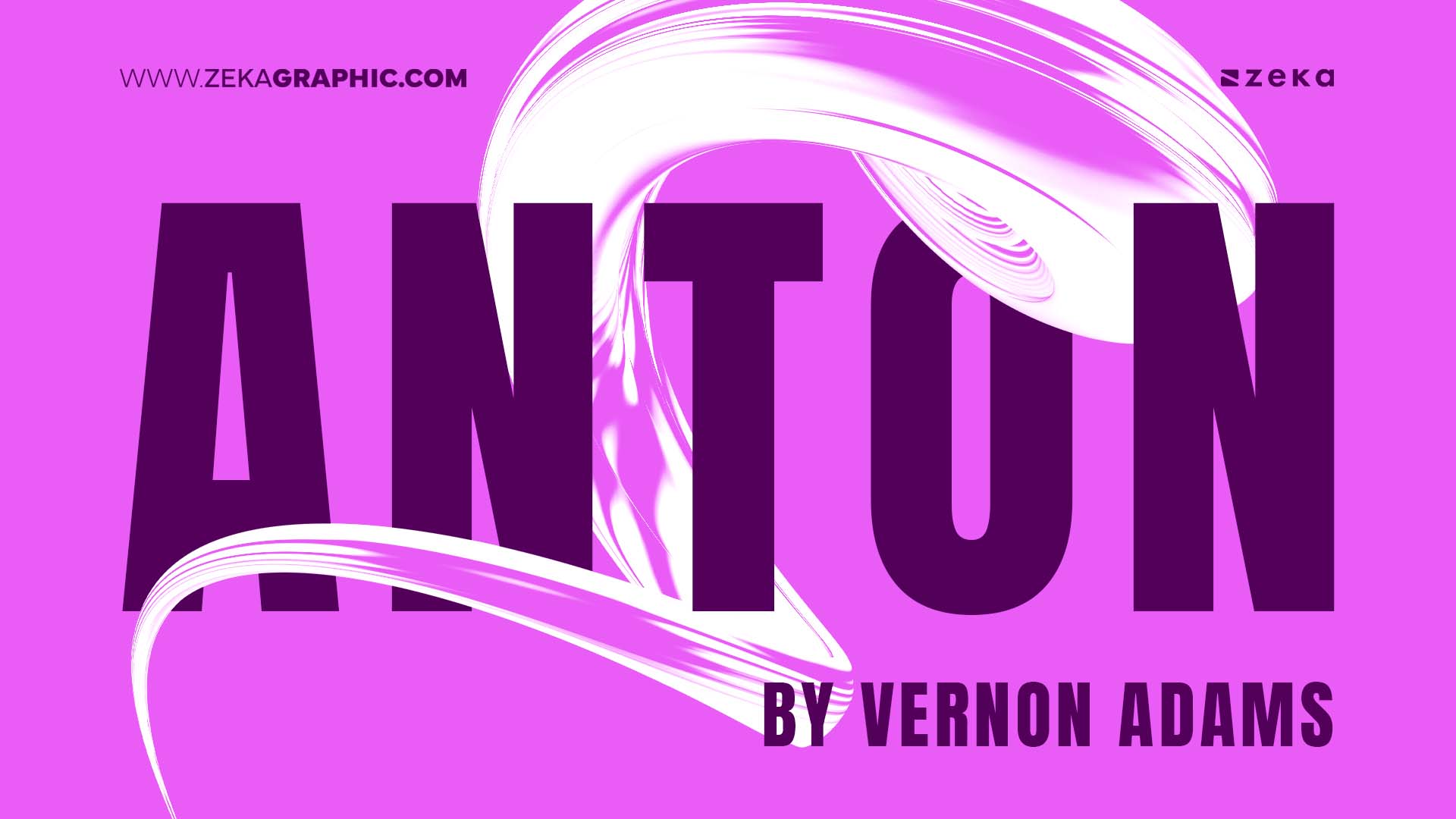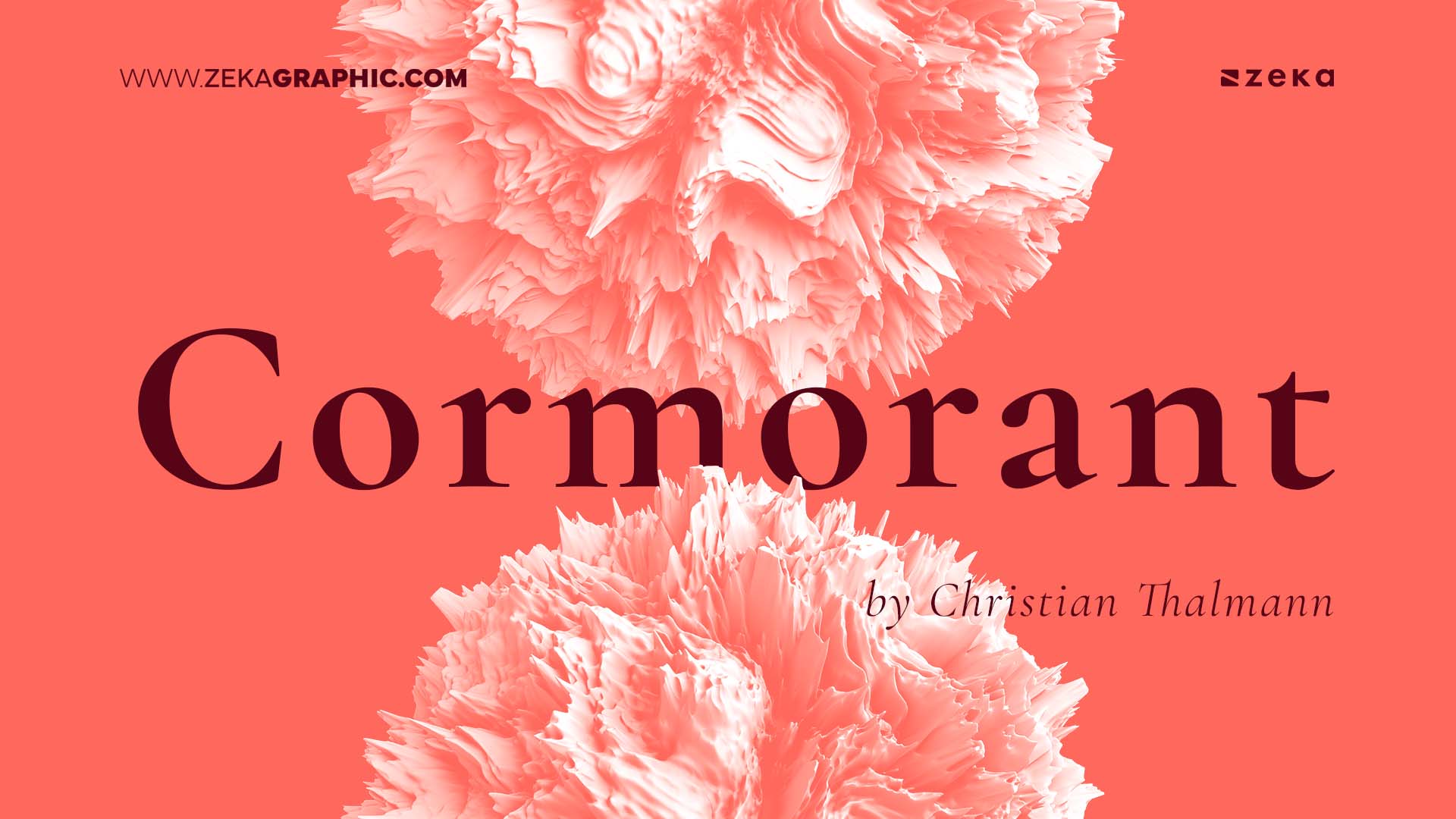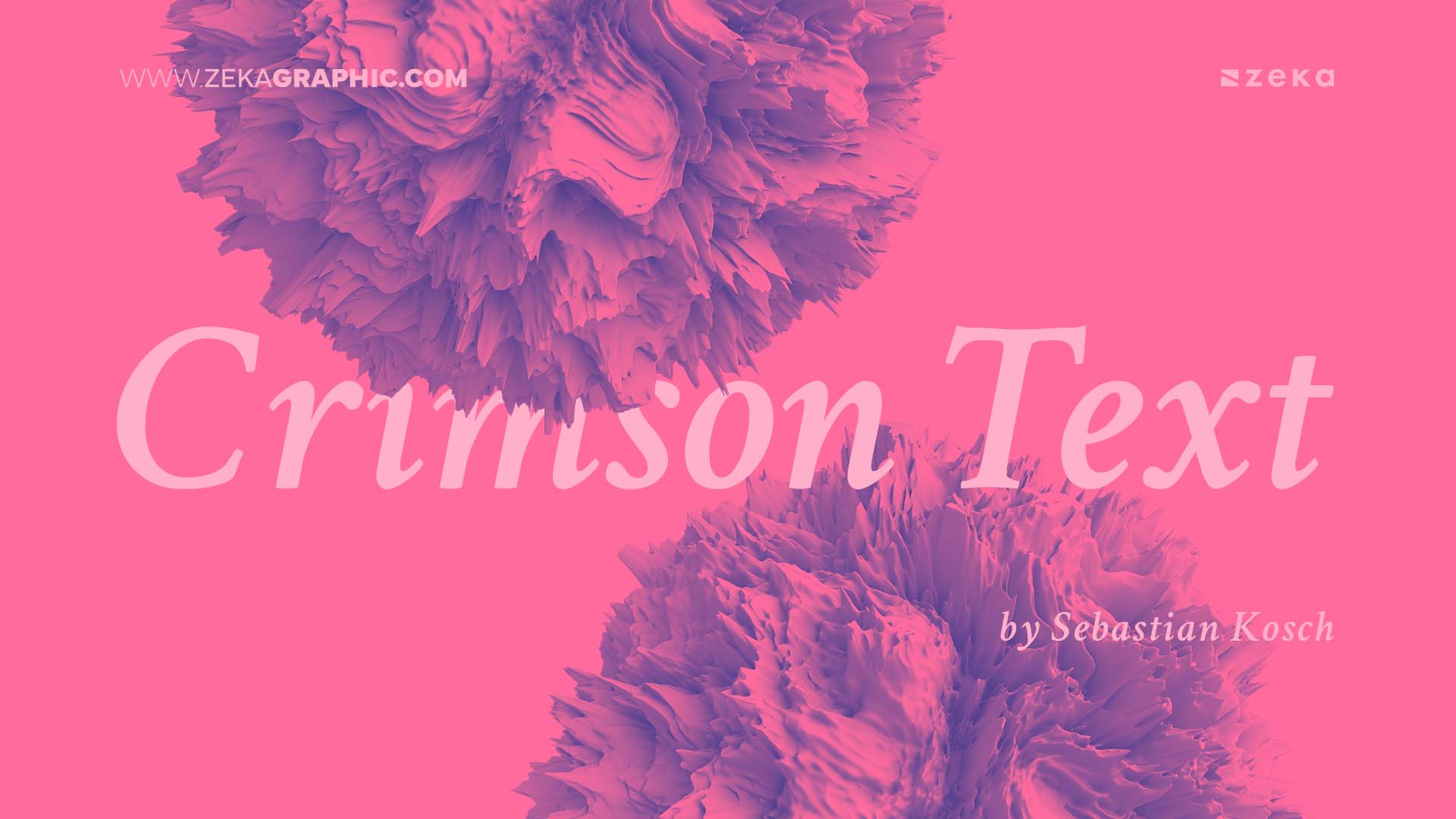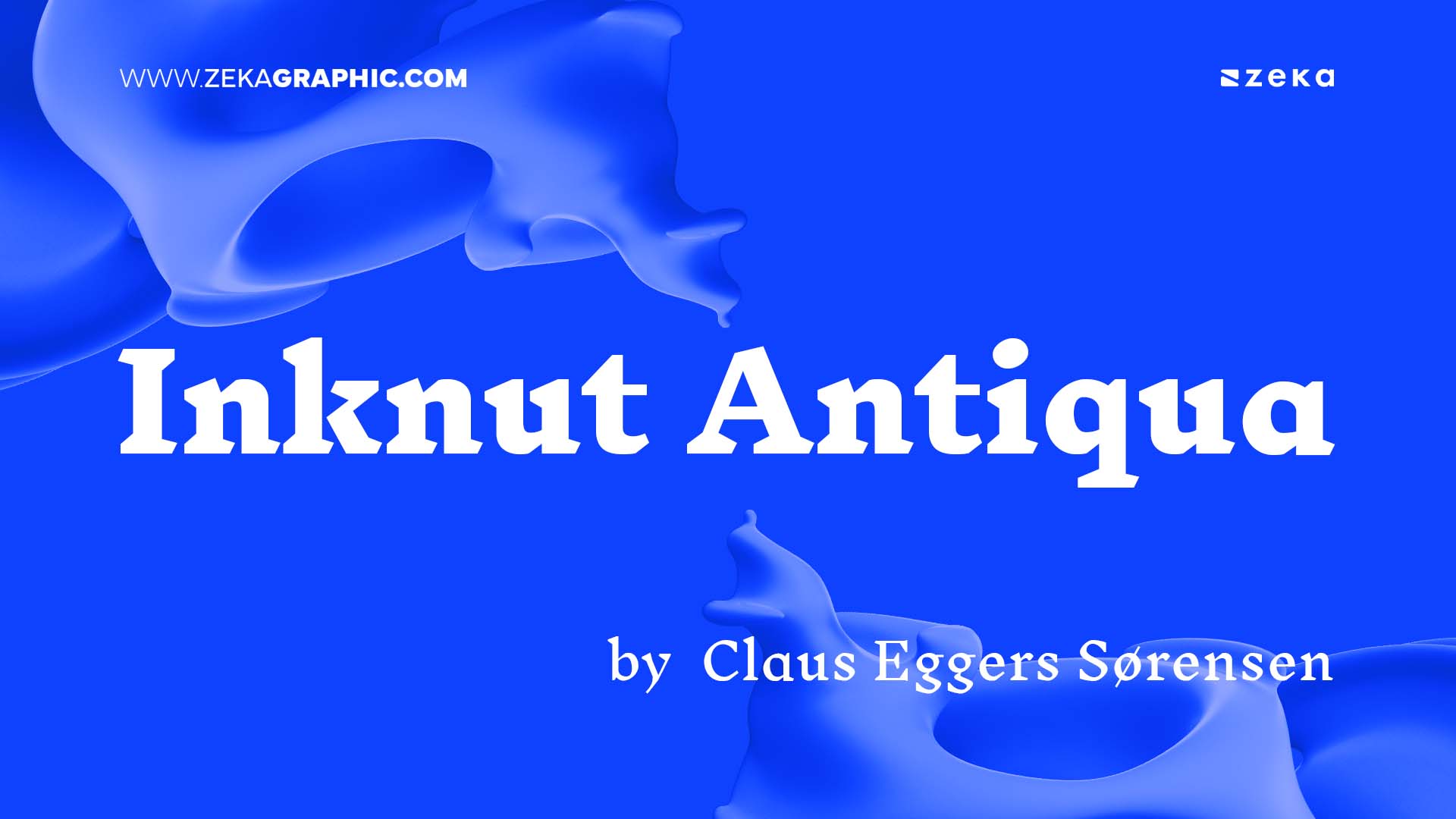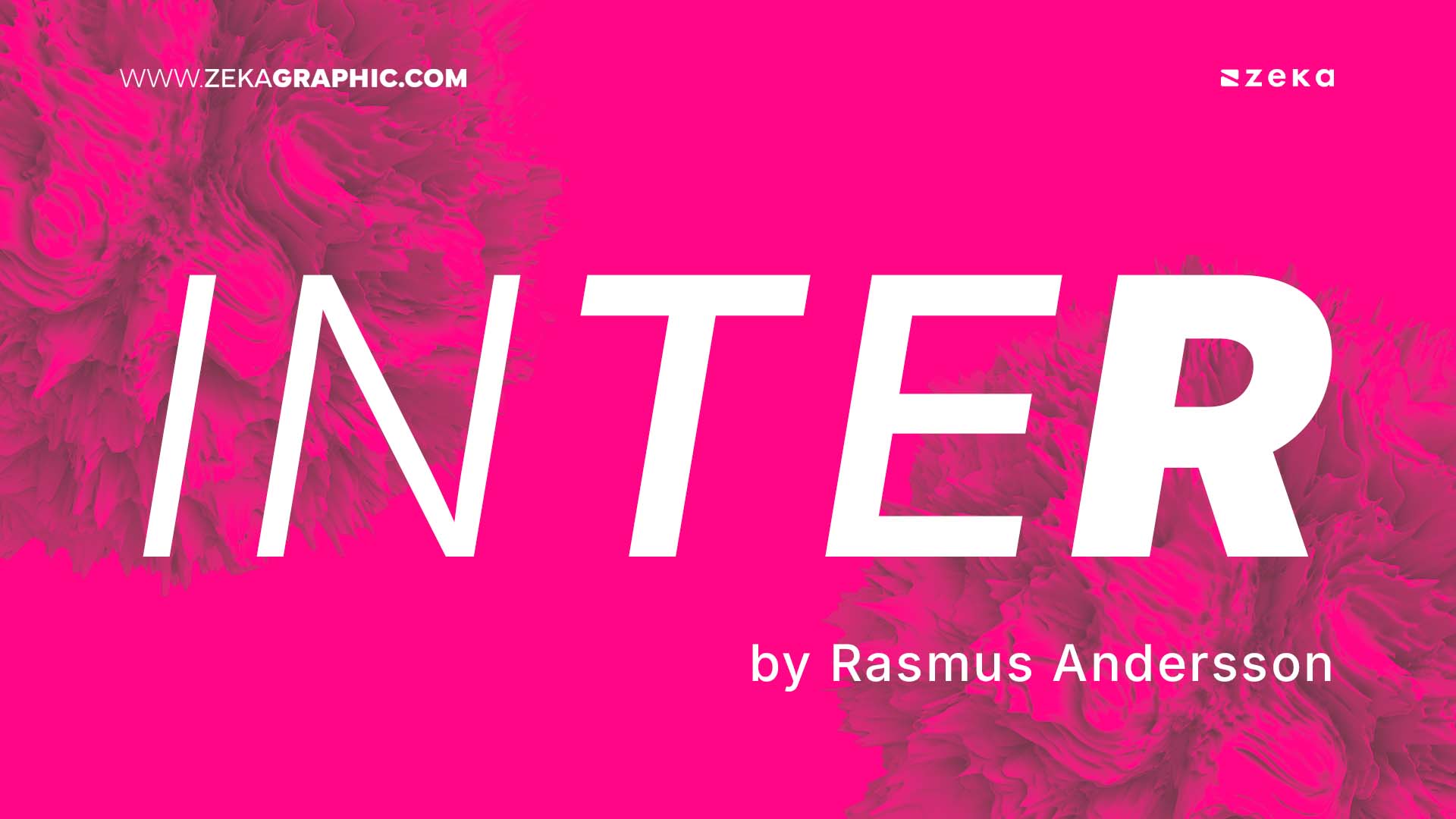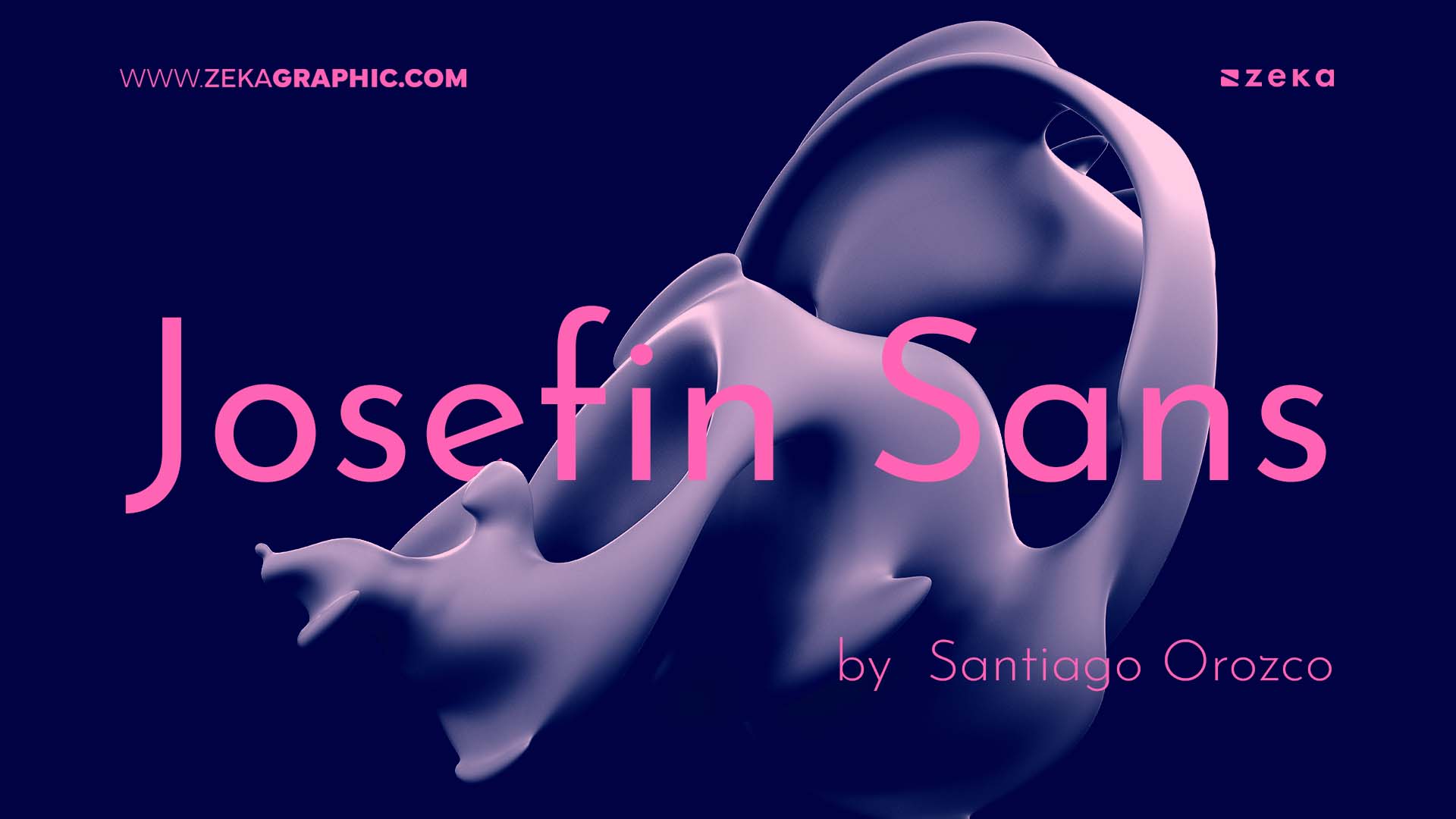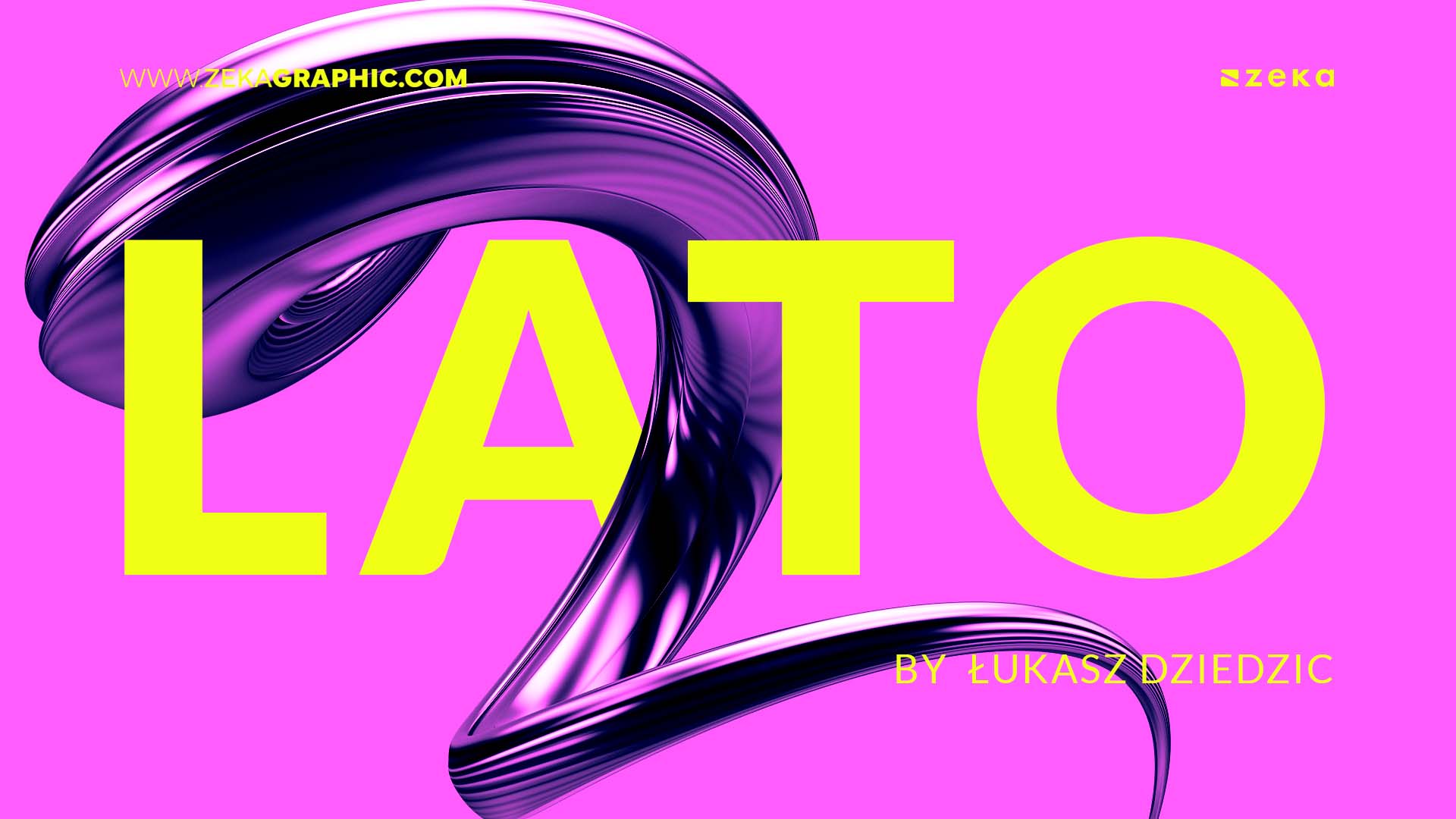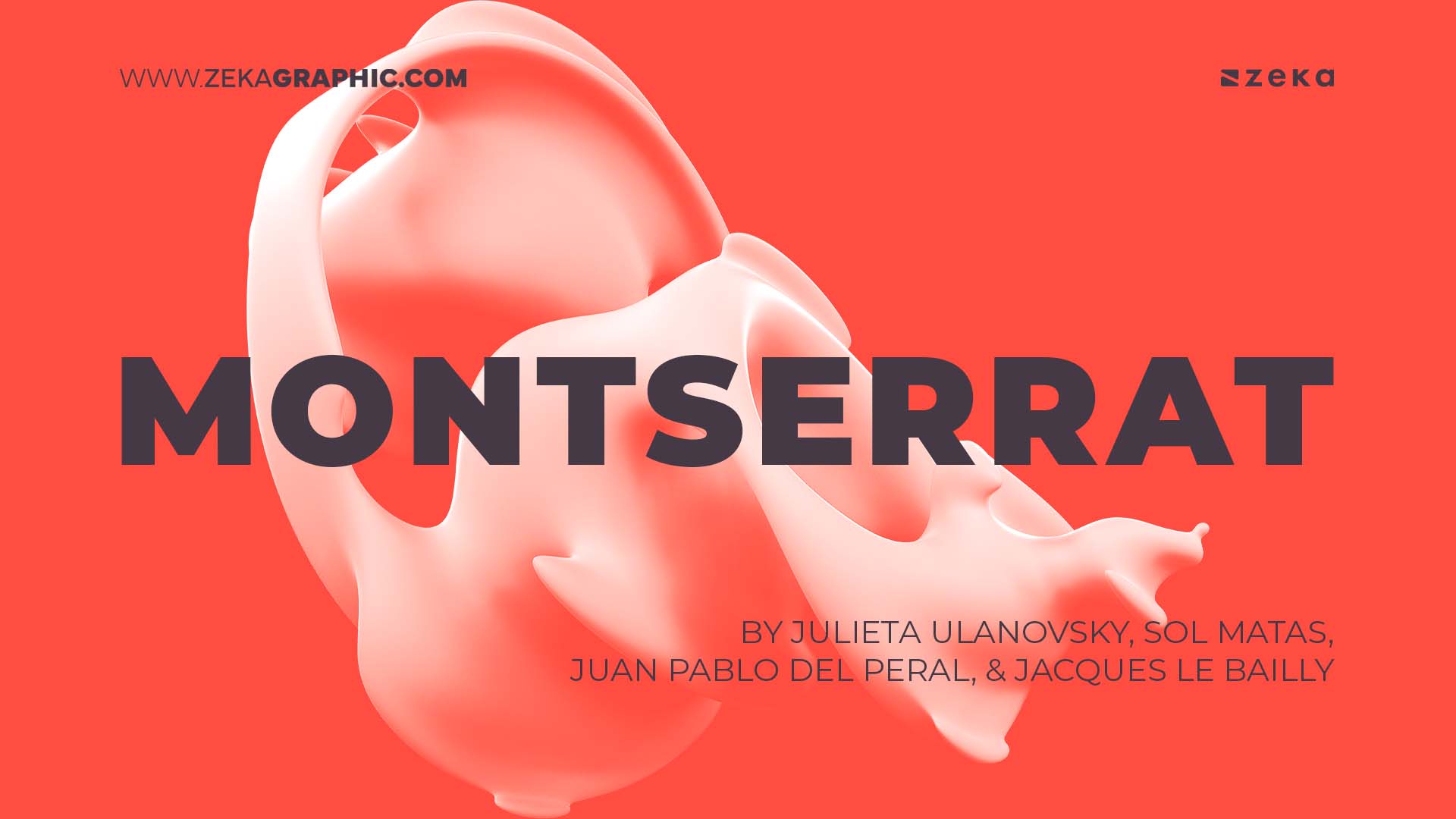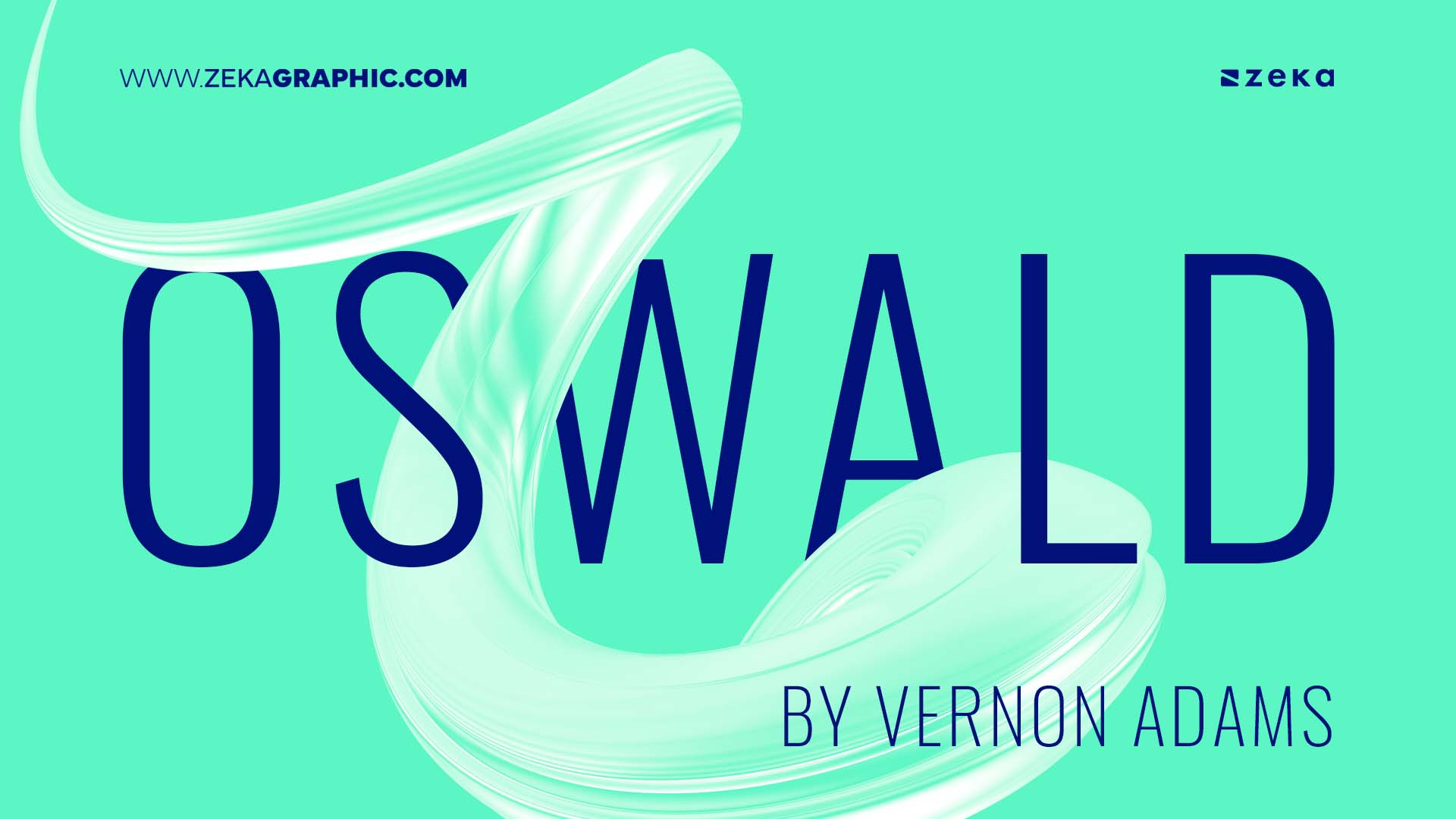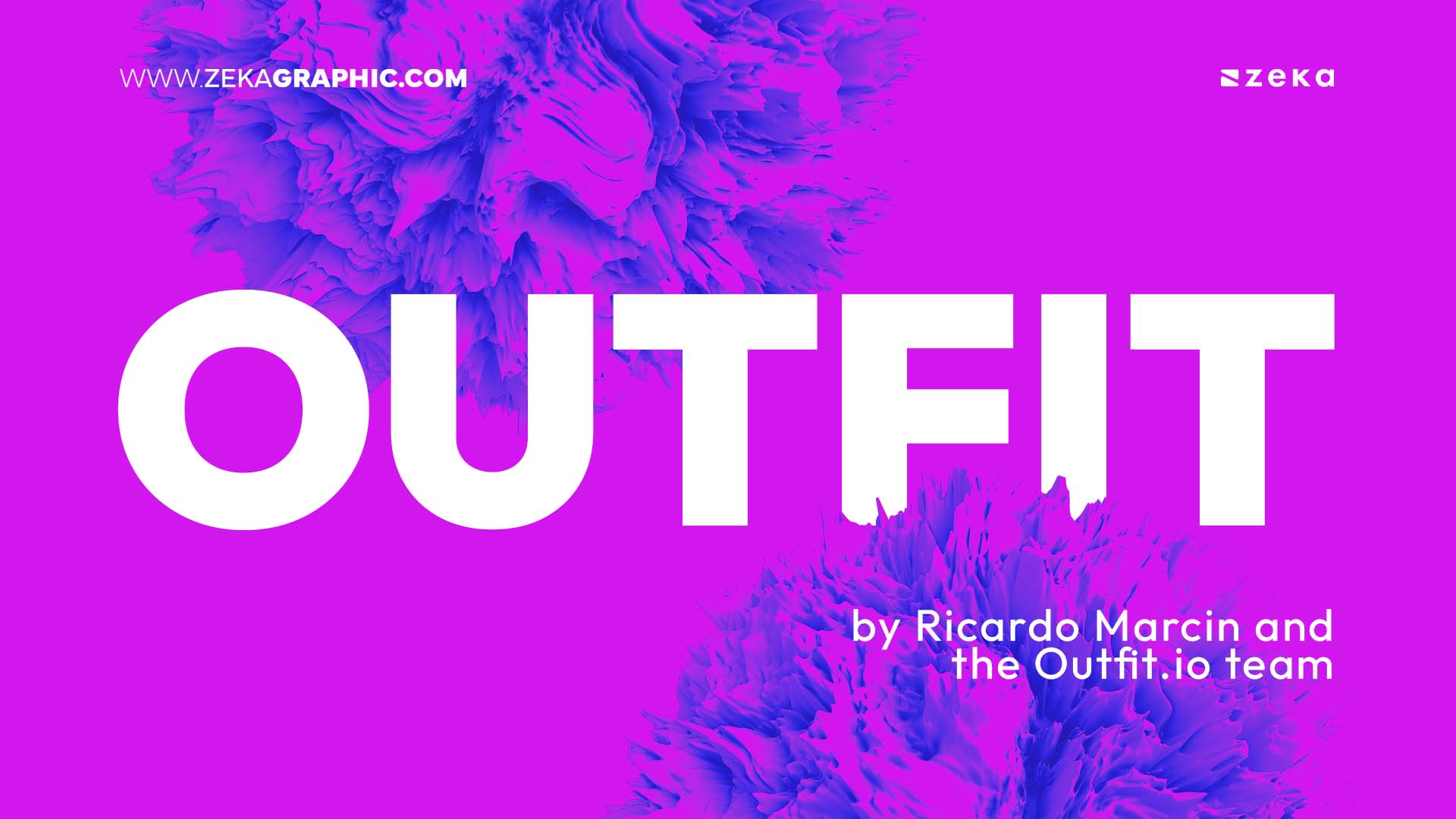
Choosing the right font can make or break a design — whether you’re working on a logo, poster, branding, or web layout. With hundreds of free, high-quality typefaces available on Google Fonts, graphic designers have access to a vast library of styles, from elegant serifs and bold display fonts to clean, modern sans-serifs.
In this guide, we’ve curated the best fonts on Google Fonts for graphic design, highlighting their unique characteristics, recommended use cases, font weights, and designers behind them. Whether you’re building a brand identity, designing editorial layouts, or creating social media graphics, these typefaces will help you bring your visual ideas to life with style and clarity.
Designed by Vernon Adams, Anton is a bold, impactful sans serif typeface originally based on traditional advertising styles. It has been fully reworked and digitized for web use, with optimized stems and open counters to enhance readability in digital environments. Anton comes in a single bold weight and is ideal for headline or display usage where strong presence is needed. Its minimal detailing and high x-height give it a commanding look, perfect for posters and impactful titles.
Created by Claus Eggers Sørensen, Playfair Display is a high-contrast transitional serif typeface inspired by the Enlightenment era and the evolution of writing tools from quill to steel pen. Drawing from the elegance of Baskerville and Scotch Roman styles, it’s designed for large-size applications such as titles, headings, and editorial designs. The font comes in six weights (Regular to Black) with matching italics, and includes small caps, ligatures, and discretionary ligatures. It pairs beautifully with serif body fonts like Georgia or Gelasio.
Julieta Ulanovsky, along with Sol Matas, Juan Pablo del Peral, and Jacques Le Bailly, designed Montserrat to preserve the spirit of traditional signage from the Montserrat neighborhood of Buenos Aires. This versatile geometric sans serif features multiple weights (Thin to Black) with matching italics, making it highly adaptable for branding, web, editorial, and UI design. Its clean, modern aesthetic and strong readability make it a designer favorite for both headings and body text.
Designed by Vernon Adams, Oswald is a reimagining of the classic gothic typefaces, optimized for digital use. It is a condensed sans serif with tall, narrow letters that make it ideal for headlines, UI elements, and mobile interfaces. Oswald has a broad weight range from Light to Bold, and its condensed structure allows more content to fit in limited space without losing legibility or style.
Inter, designed by Rasmus Andersson, is a highly legible sans serif typeface created specifically for screen readability. It features a large x-height, open forms, and excellent spacing, making it one of the best choices for interfaces, apps, and websites. Inter includes a rich set of nine weights (Thin to Black), matching italics, and advanced features like variable font support, tabular numbers, and contextual alternates — a powerful toolkit for digital product designers.
Originally designed for letterpress use, Radley is a serif font with a subtly hand-crafted feel, created by Dan Rhatigan. Its moderate contrast and slightly irregular forms lend a unique charm, making it perfect for narrative text, book covers, and editorial layouts. Radley comes in a single regular weight with italic, and it stands out for its warm and humanistic tone, bridging the gap between tradition and personality.
Unbounded is a modern sans serif designed as the first open-source variable font with full support for the Māori language, created by Klim Type Foundry. This geometric sans offers nine static weights (from ExtraLight to Black) and variable font capabilities, making it ideal for flexible digital design. With its soft curves, contemporary look, and inclusive design ethos, Unbounded is perfect for brand identities, tech projects, and inclusive digital interfaces.
Designed by Christian Thalmann, Cormorant is a stunning display serif inspired by the Garamond heritage but reimagined for dramatic elegance. With high contrast, sharp terminals, and expressive flourishes, it’s best suited for editorials, branding, and book covers. The family offers a wide range of weights and styles, including Cormorant Garamond, Cormorant SC (small caps), Cormorant Upright, and more — making it a typographic playground for expressive projects.
Josefin Sans, created by Santiago Orozco, is a geometric, vintage-inspired sans serif influenced by the 1920s and 30s modernist styles. Its letterforms are delicate yet structured, with low x-height and elegant curves. With multiple weights (Thin to Bold) and matching italics, it shines in headlines, quotes, and stylized body text. Josefin Sans evokes a retro-futuristic aesthetic that blends old-school charm with contemporary design needs.
Designed by Łukasz Dziedzic, Lato (meaning “summer” in Polish) is a sans serif typeface developed with both warmth and professionalism in mind. Originally created for a corporate client, Lato blends classical proportions with modern letterforms, resulting in a friendly yet elegant typeface. It includes a comprehensive range of weights from Hairline to Black, each with matching italics, making it suitable for everything from body text to UI and branding. Its neutral yet humanist tone makes it one of the most popular web fonts today.
Explore, combine, experiment — and let your type do the talking.